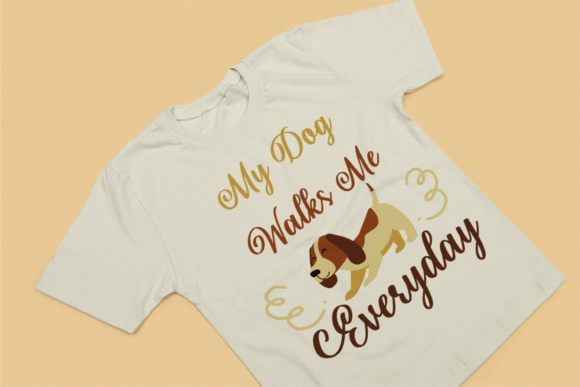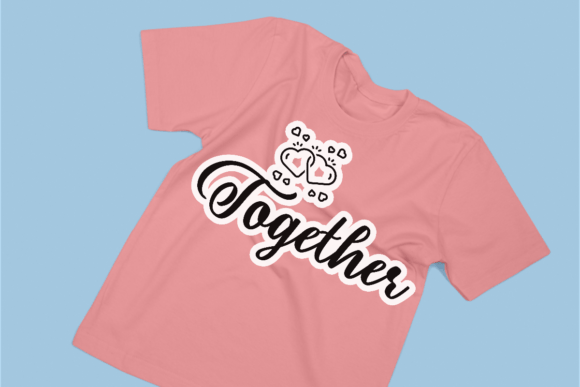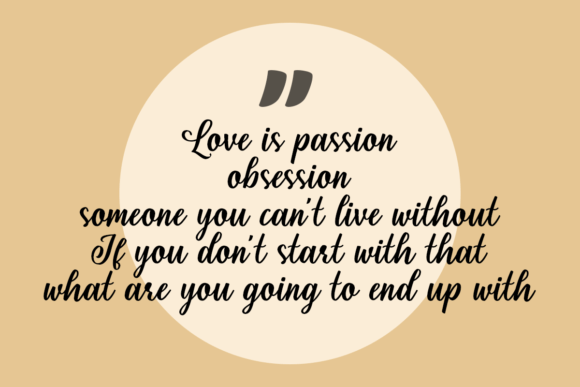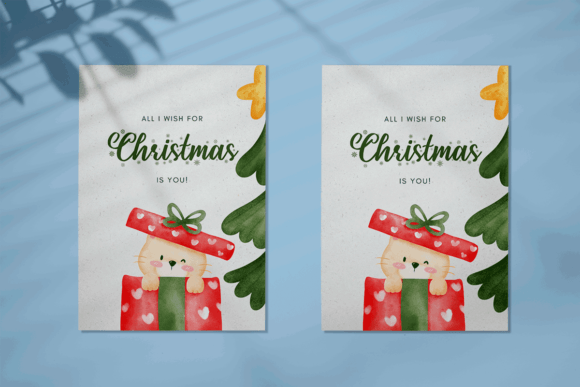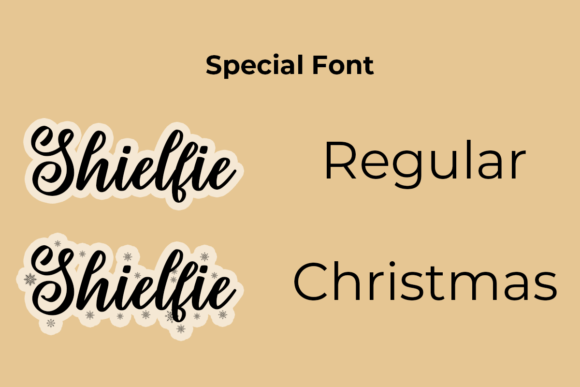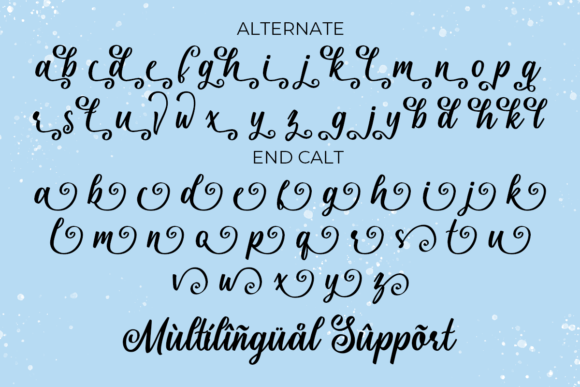
Introduction to Shielfie Font
Shielfie is a beautiful and subtle script font that exudes elegance and class.
With its unique style, you can create a beautiful and refreshing look for a spectacular winter design This font is PUA encoded, which means you can access all of the glyphs and swashes with ease.